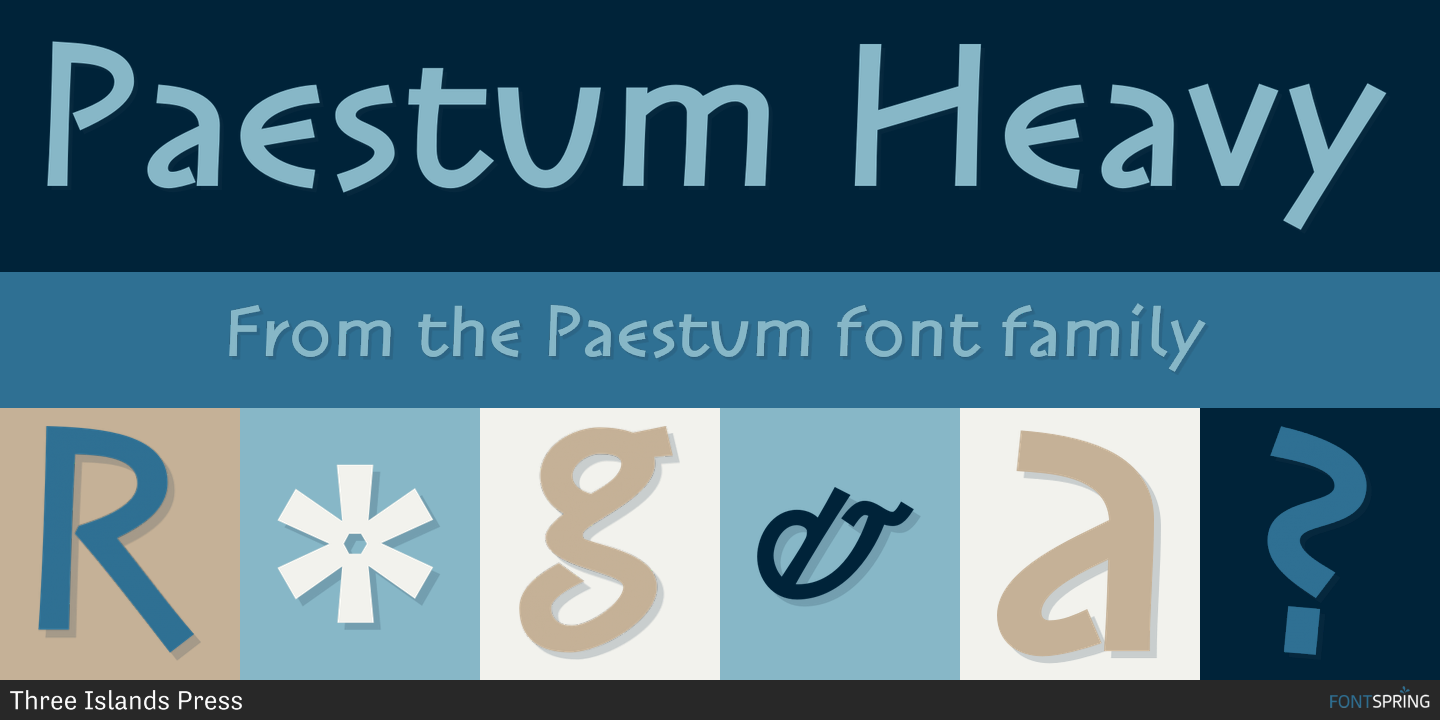
Paestum Heavy
Paestum is a sans serif font family. This typeface has three styles and was published by Three Islands Press.
Paestum is a Latin typeface inspired by Greek inscriptions of the 6th and 5th centuries B.C. Its name comes, suitably, from the Latin name for Poseidonia, a former Greek city south of Naples whose two remaining Doric temples have been on antiquities tours since at least the 1700s. Others have scanned this terrain before, of course, but earlier designs failed to supply a lower case. Although Paestum includes complete upper- and lowercase alphabets, diacritics, numerals, and essential punctuation, it does not have many unhistorical glyphs—such as currency symbols and the @ sign. Paestum comes with three weights: light, medium, and heavy.